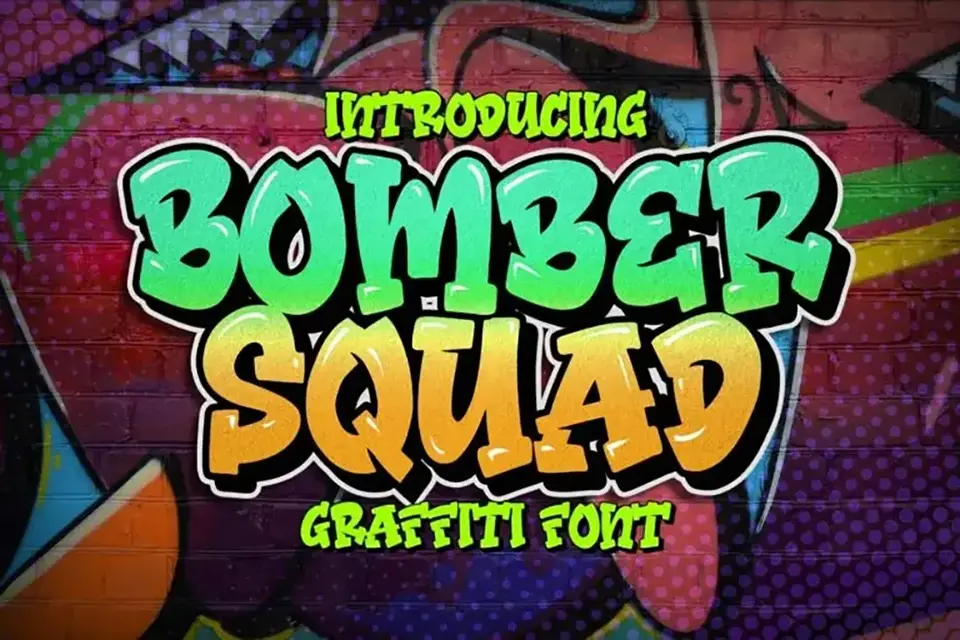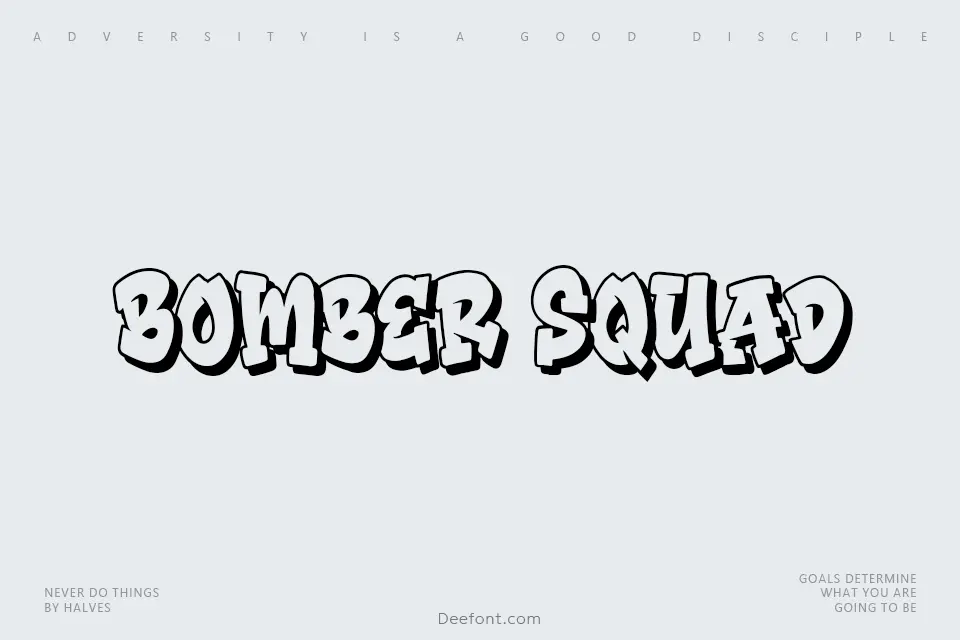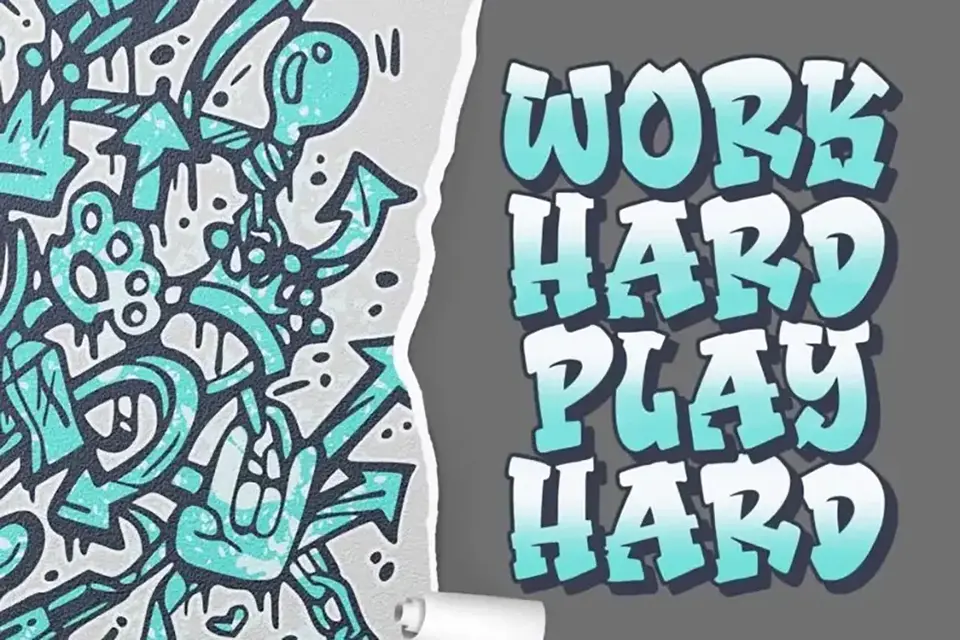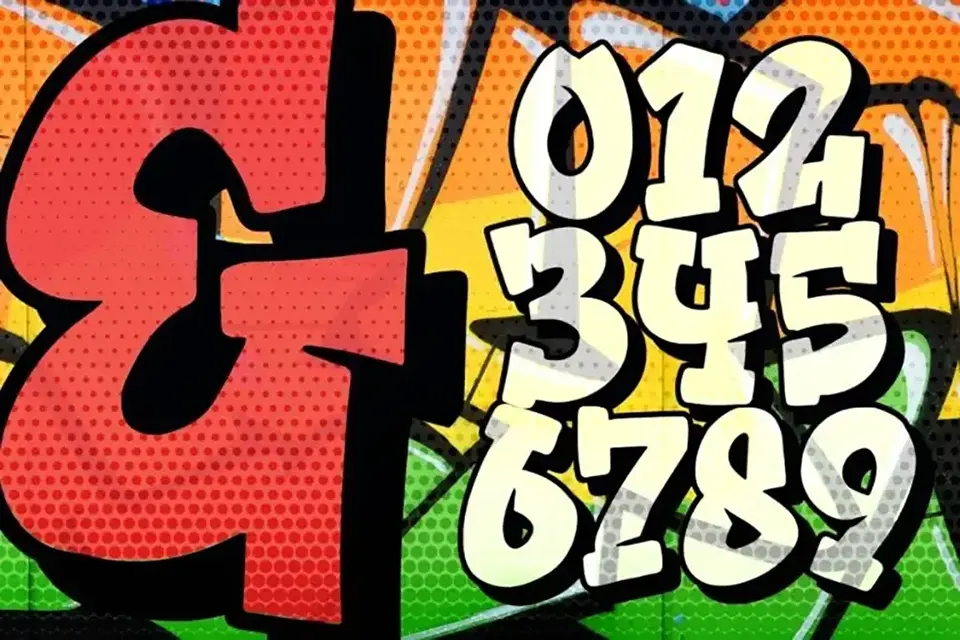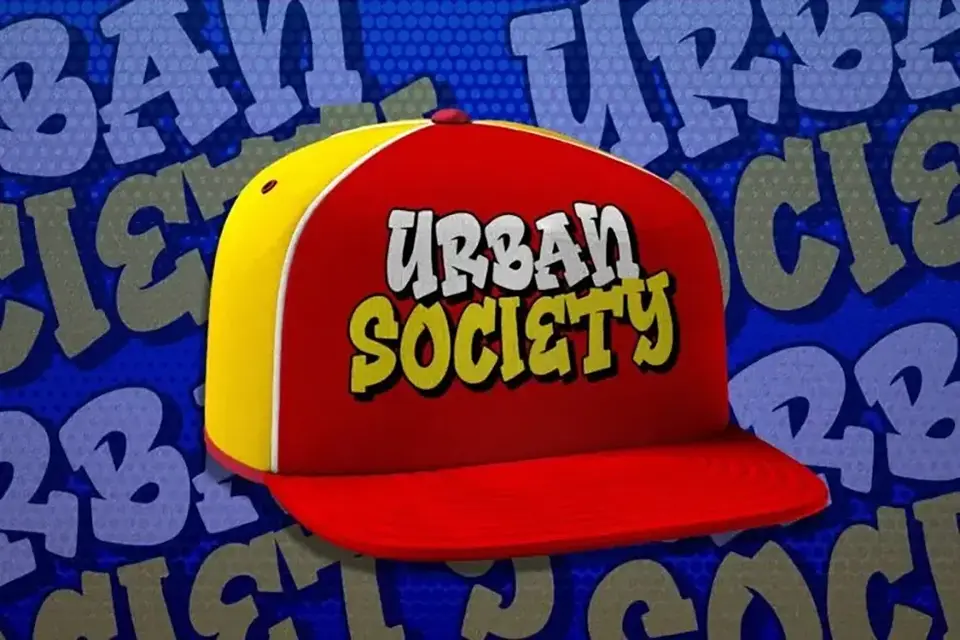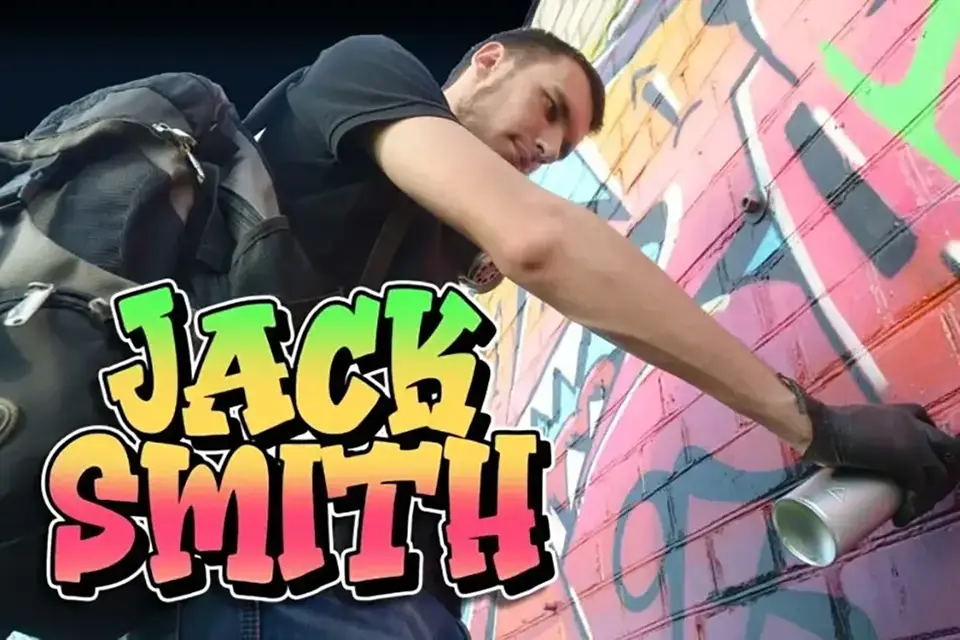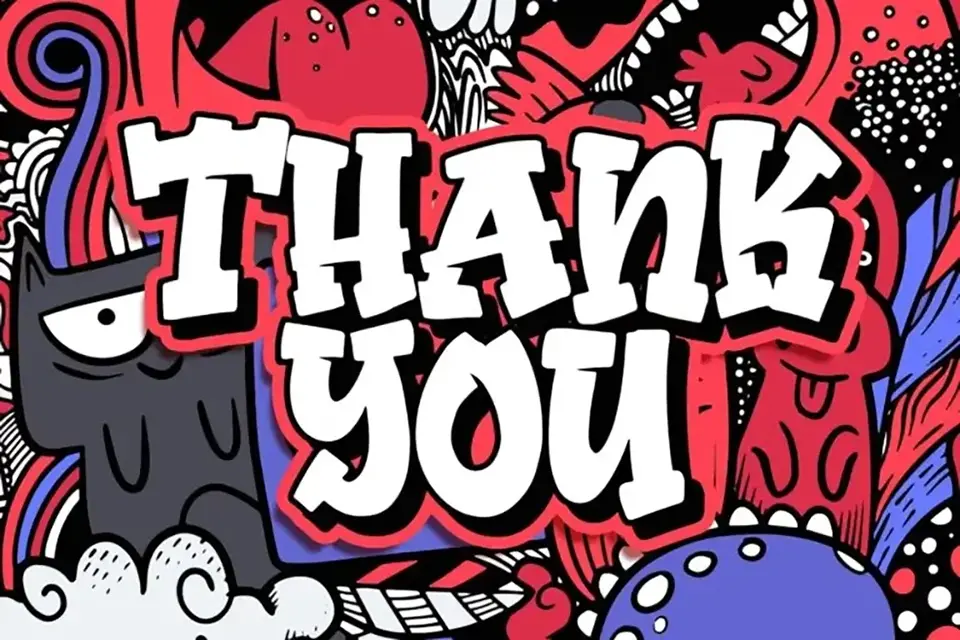
Bomber Squad Font
Bomber Squad is a retro-inspired graffiti script font featuring bold, chunky uppercase letterforms with a vintage World War-era aesthetic. Perfect for posters, logos, and advertising campaigns, this dynamic typeface delivers energetic street art vibes ideal for hip-hop designs, comic projects, and playful layouts. With its adventurous character and versatile punctuation marks, the font brings nostalgia and urban style to any creative project while maintaining excellent readability and impact across multiple design applications.